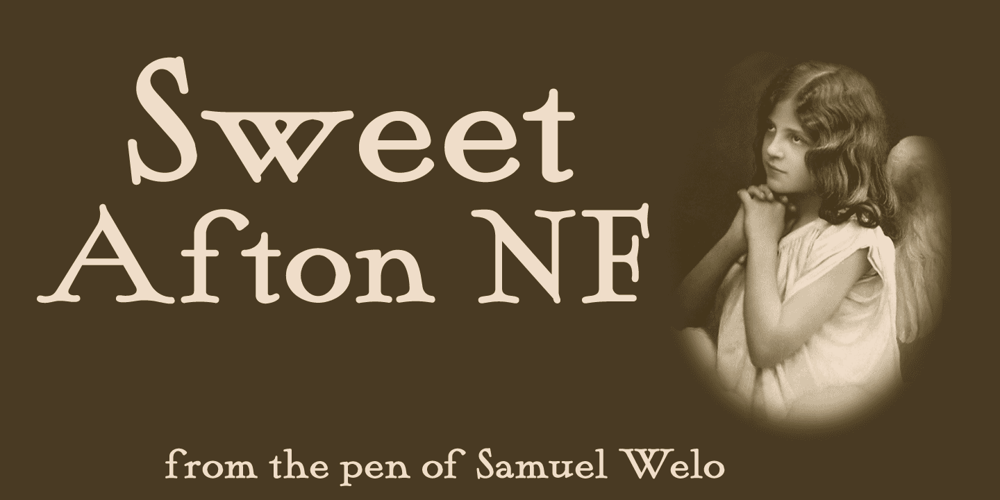
Sweet Afton NF
Sweet Afton NF Font Family was designed by published by Nick’s Fonts. Sweet Afton NF contains 1 styles and family package options. Samuel Welo offered the pattern for this font as a titling font for silent movies. Its rustic charm has held up well, some eighty years on. Both versions of this font support the Latin 1262, Central European 1250, Turkish 1254 and Baltic 1257 codepages.